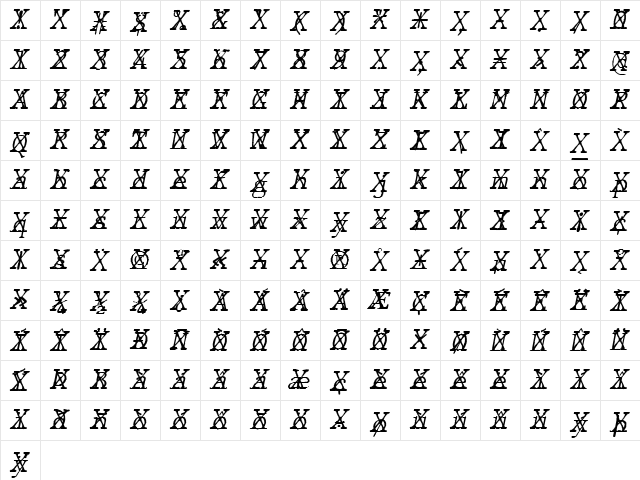
Complete JMH Typewriter mono Fine Cross Italic glyph index. Displaying only characters natively supported by JMH Typewriter mono Fine Cross Italic font.
JMH Typewriter mono Fine Cross uses fixed-width spacing throughout, giving it the structured, systematic character associated with coding environments and technical documentation. The slanted form adds forward momentum and visual energy.